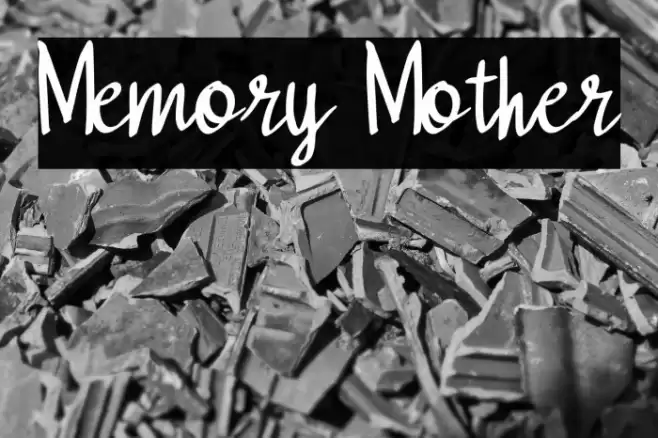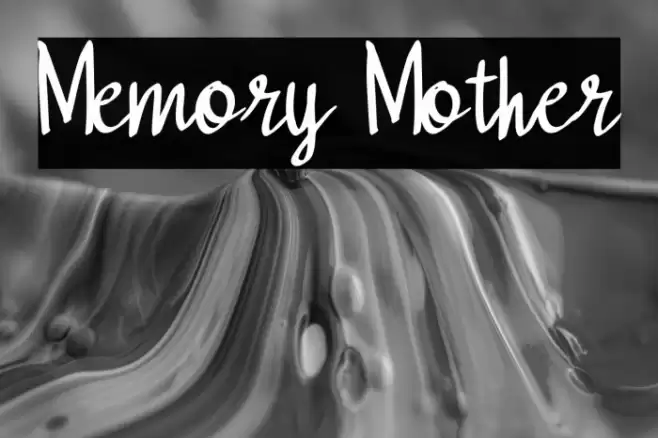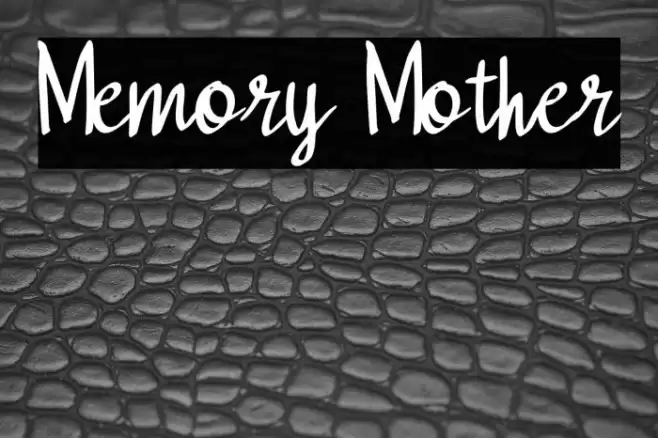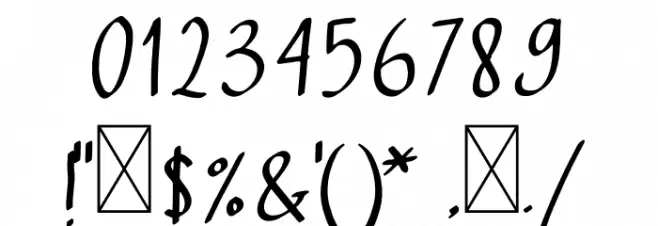
Memory Mother Font
Memory Mother Description
This font features a dynamic and expressive handwritten style, characterized by its fluid and slightly irregular strokes. The uppercase letters are bold and prominent, with a playful yet sophisticated flair. The lowercase letters maintain a consistent flow, adding to the overall casual elegance of the typeface. Numbers and special characters are crafted with the same attention to detail, ensuring a cohesive look across all elements. The font's unique charm makes it suitable for projects that require a personal touch, such as invitations, greeting cards, or branding materials.
A dynamic handwritten font with fluid and expressive strokes from Uncategorized fonts.